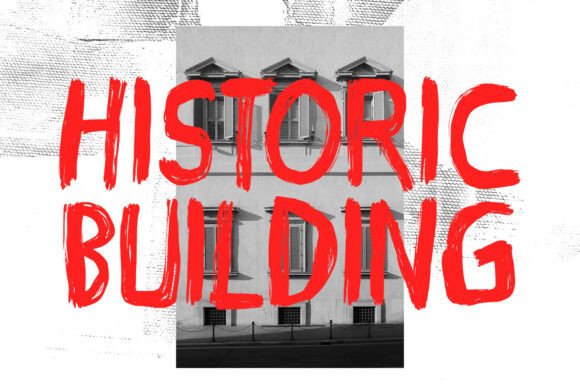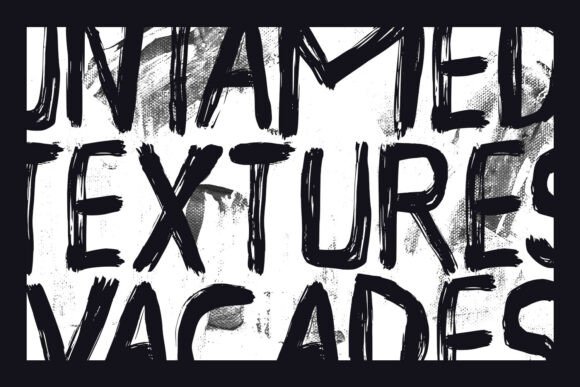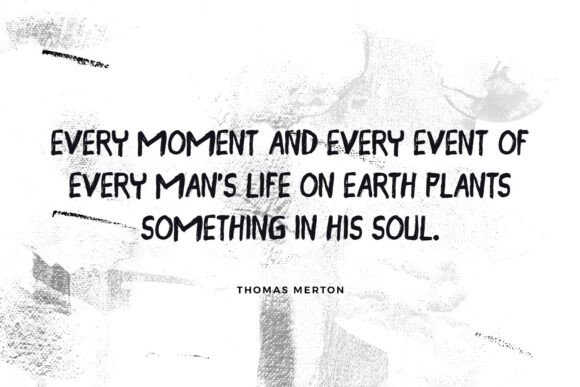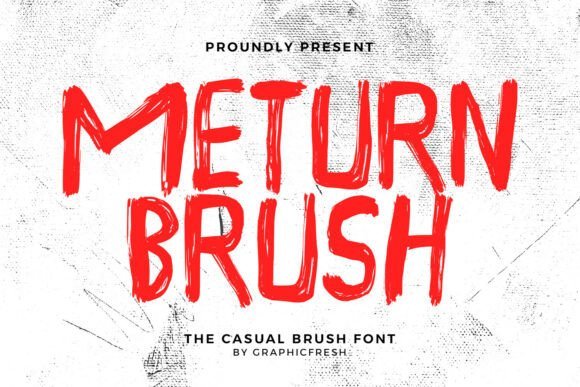
Introduction to Meturn Font
Meturn is a casual brush font designed with relaxed strokes and natural hand-painted flow.
Inspired by everyday handwriting, this font delivers a friendly and approachable feel while maintaining a modern brush character Its smooth curves and slightly rough texture create a balanced look that feels both effortless and expressive.
Key Features of Meturn Font